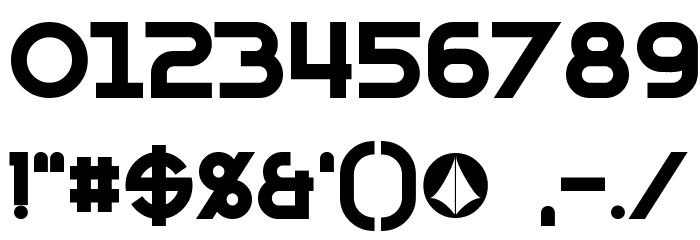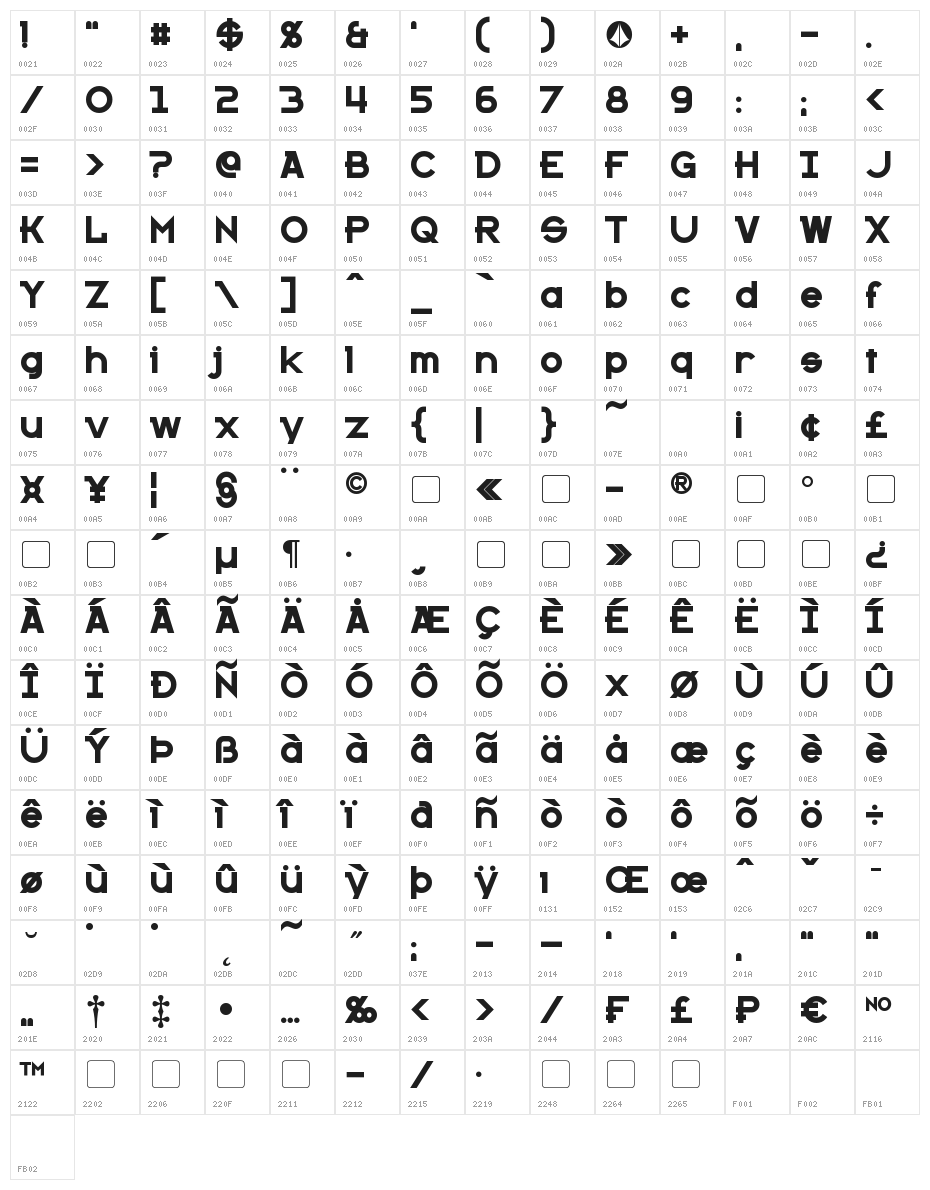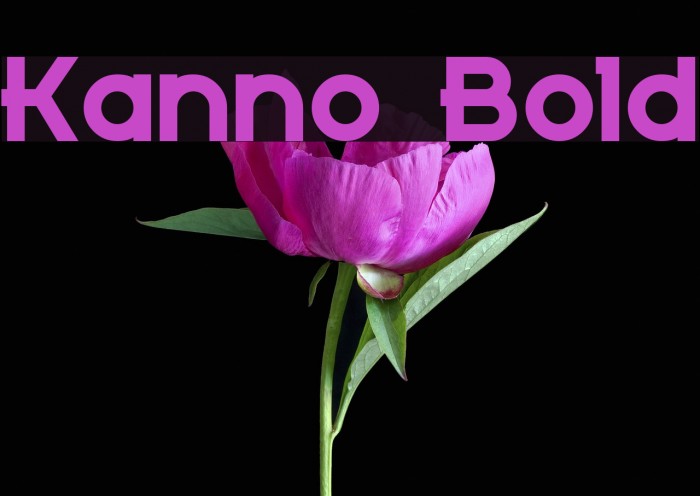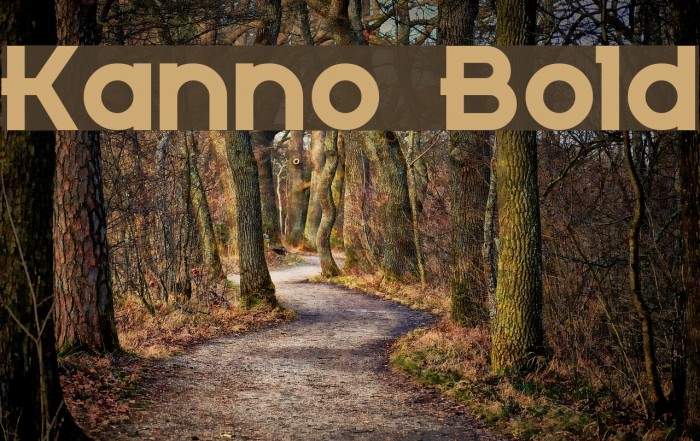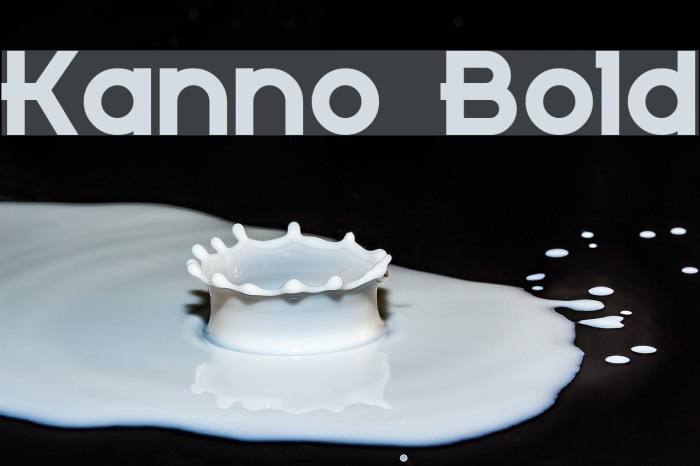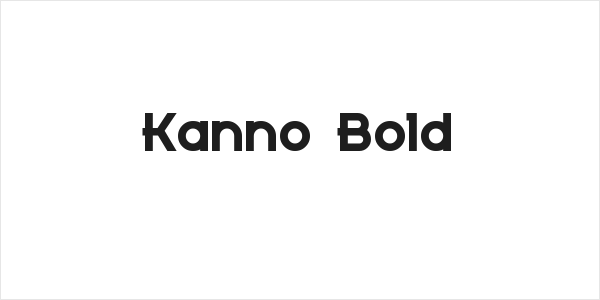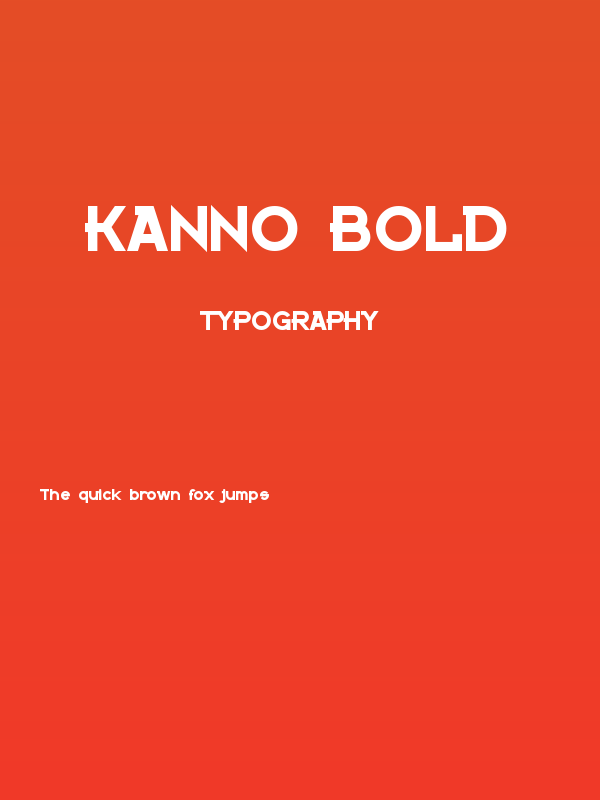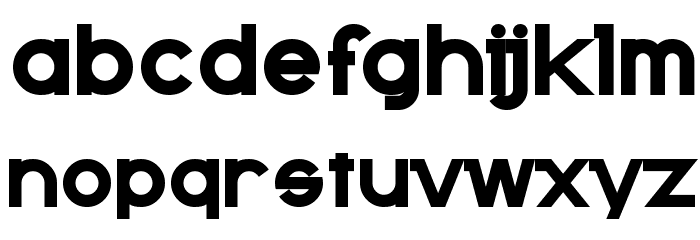
Kanno Bold Font
Kanno Bold Description
This bold and modern typeface features a geometric and clean design, characterized by its strong lines and uniform stroke width. The uppercase letters are particularly striking, with a consistent height and width that create a balanced and harmonious appearance. The lowercase letters maintain the same geometric style, offering a cohesive look across all text. The numerals are clear and easy to read, making them suitable for a variety of applications. Special characters are designed with the same attention to detail, ensuring they integrate seamlessly with the rest of the font. This typeface is ideal for projects that require a contemporary and bold aesthetic.